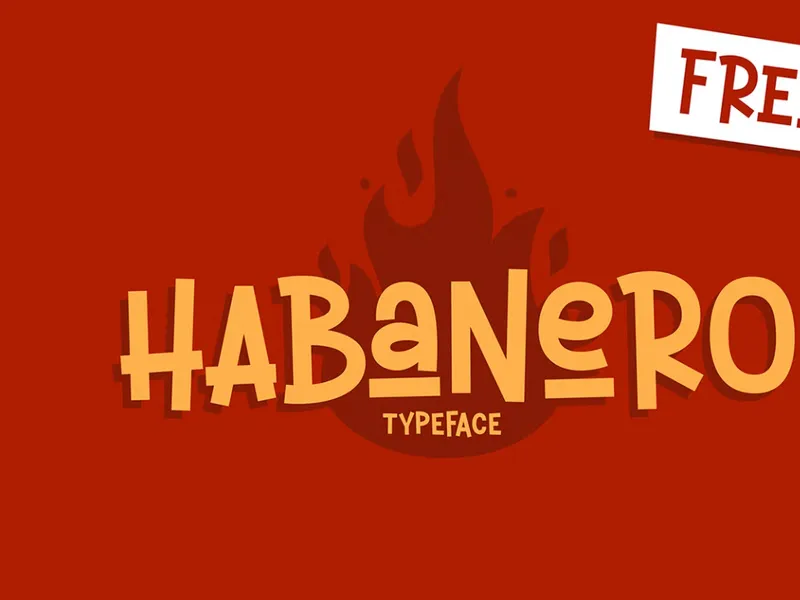
Habanero – Handwritten Cartoon Font
Habanero
Habanero – Handwritten Cartoon Font is a cool and fun display font. It is the perfect font for titles or words needing a more dramatic emphasis like poster, book cover, invitation, children book, and many more. Whatever the topic, this font will be a wonderful asset to your font library, as it has the potential to enhance any creation.